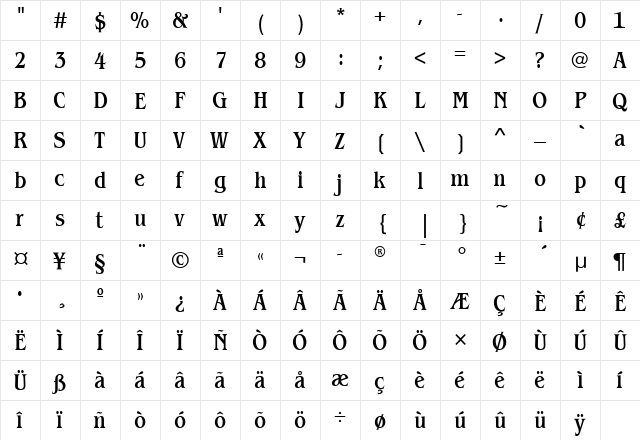
BenguiatCdMdITC Medium Font Preview
BenguiatCdMdITC Medium
BenguiatCdMdITC Medium Font Details
Design Context for BenguiatCdMdITC Typeface
BenguiatCdMdITC takes a measured approach to typography — its balanced proportions and neutral character make it a reliable workhorse for both digital and print work.